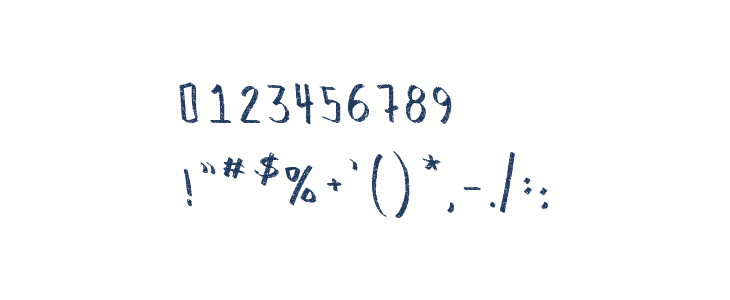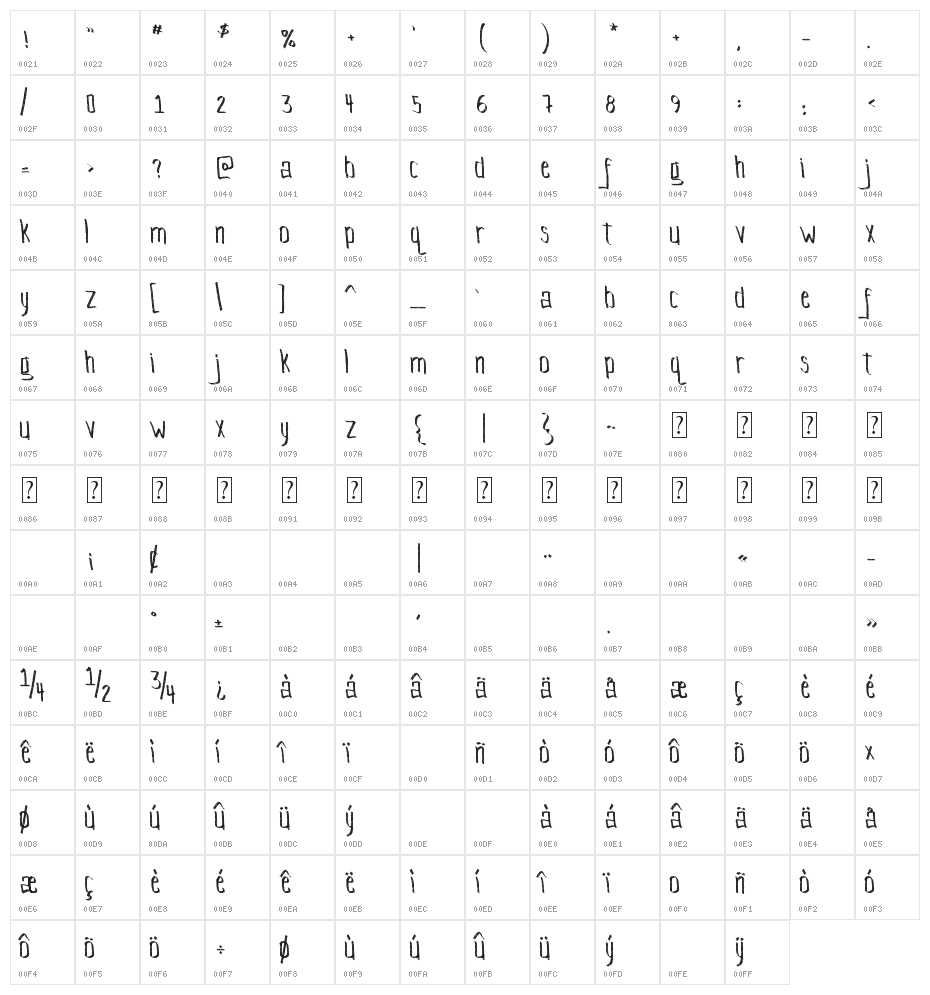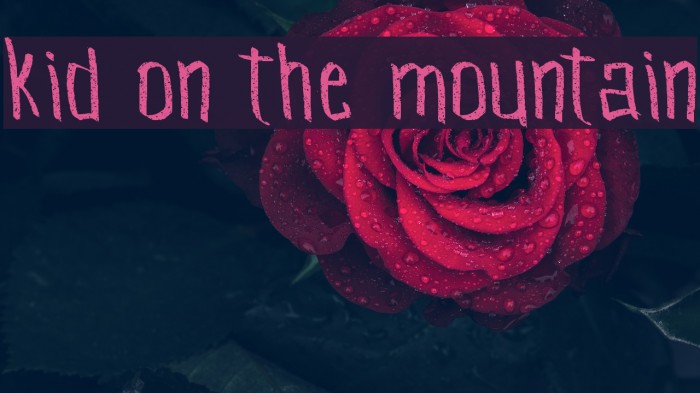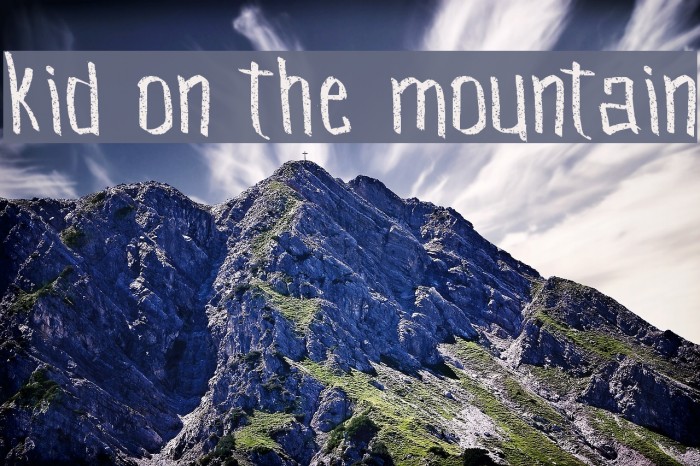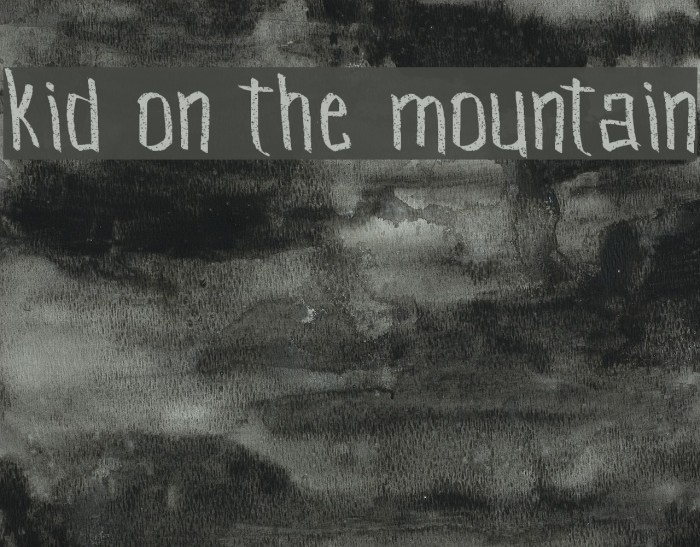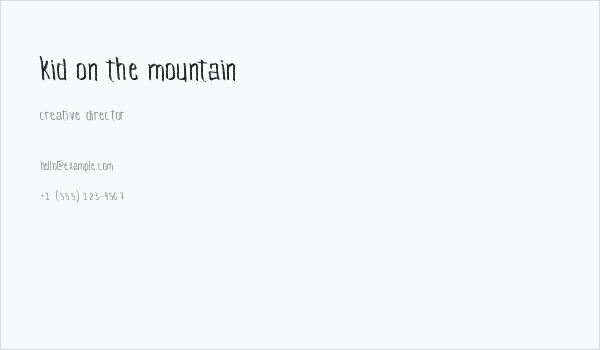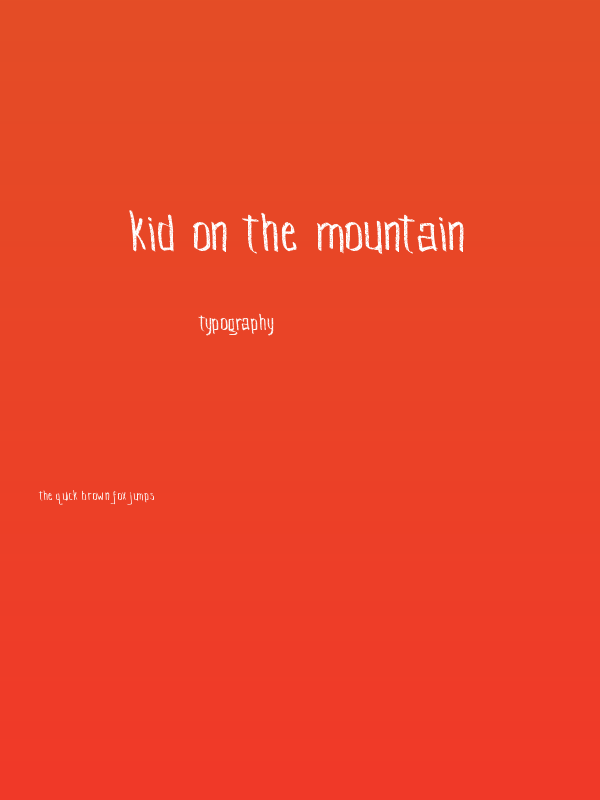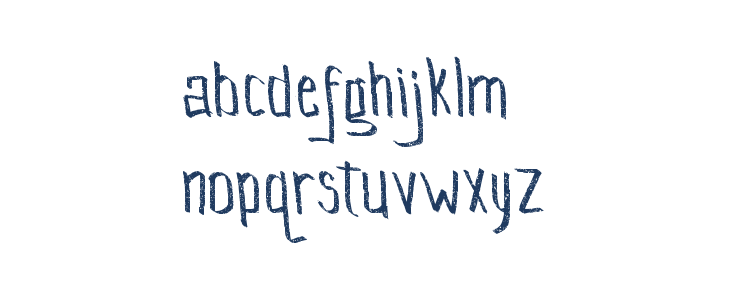
Kid On The Mountain Font
Kid On The Mountain Description
This font features a playful and rustic design, characterized by its uneven and hand-drawn appearance. The letters have a slightly rough texture, giving them a natural and organic feel. The strokes are irregular, with varying thicknesses that add to the font's charm. The overall look is casual and whimsical, making it suitable for projects that require a touch of creativity and informality. The characters are slightly condensed, which enhances the quirky and unique style of the font. It includes a full set of uppercase and lowercase letters, numbers, and a variety of special characters, ensuring versatility in its application.
| Proposed Projects | Ideal for children's book covers, playful branding, creative posters, and informal invitations. |